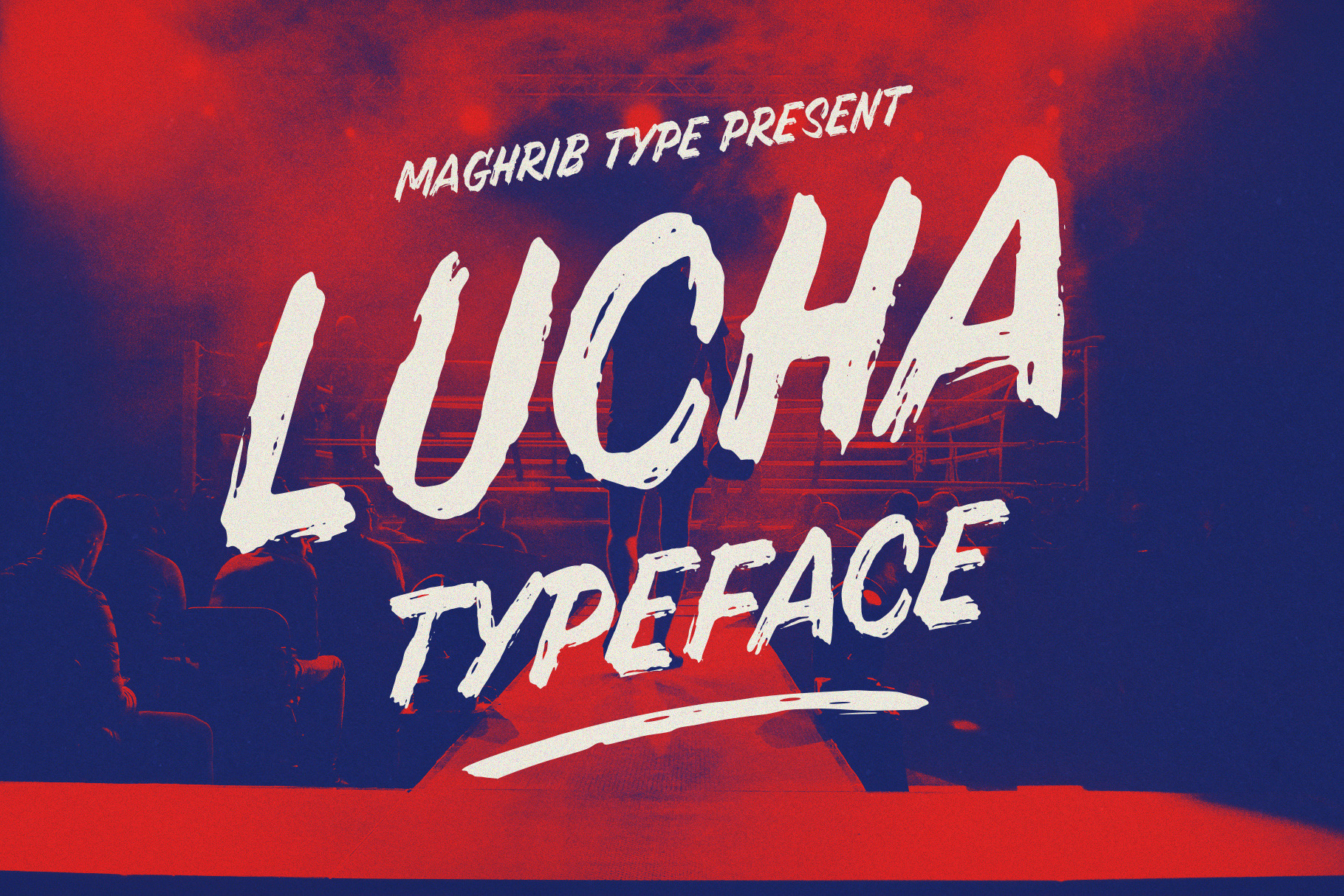
LUCHA TYPEFACE
LUCHA TYPEFACE is hand painted typeface designed to help you create the look of stunning custom hand-lettering.
LUCHA TYPEFACE is very best choice fonts for : ,quotes, Posters, Logos, Print Ads, Digital Ads, Promotion Product, video bumper, etc